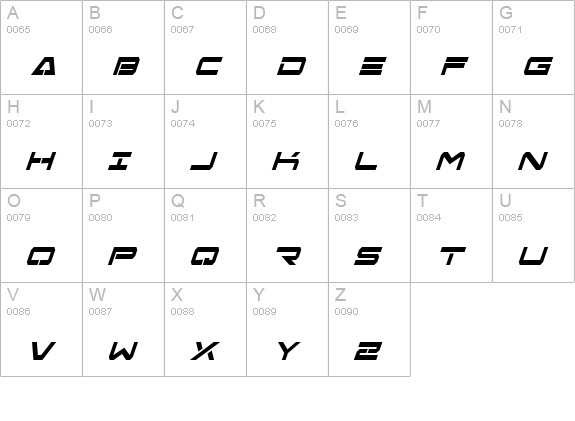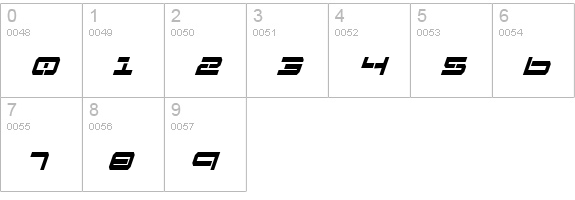
Free Agent Bold CondItal Font Details
Free Agent Bold CondItal is a strong, high-contrast variant in the Free typeface family \xE2\x80\x94 well suited to headlines, attention-grabbing titles, and strong calls-to-action.
Introducing Free Agent Bold CondItal font, a versatile and modern typeface that exudes confidence and sophistication. This unique font combines boldness with elegance, making it perfect for a wide range of design projects. Whether you're creating sleek logos, eye-catching headlines, or stylish branding materials, Free Agent Bold CondItal font is sure to make a bold statement. What sets this font apart is not only its striking design but also its accessibility. As the name suggests, Free Agent Bold CondItal font is freely available to download at FontsMarket.com. This means you can easily incorporate this stunning font into your projects without any additional cost. With its clean lines, sharp angles, and distinct character shapes, Free Agent Bold CondItal font is guaranteed to catch the eye and leave a lasting impression. Elevate your designs with this exceptional font and let your creativity shine.